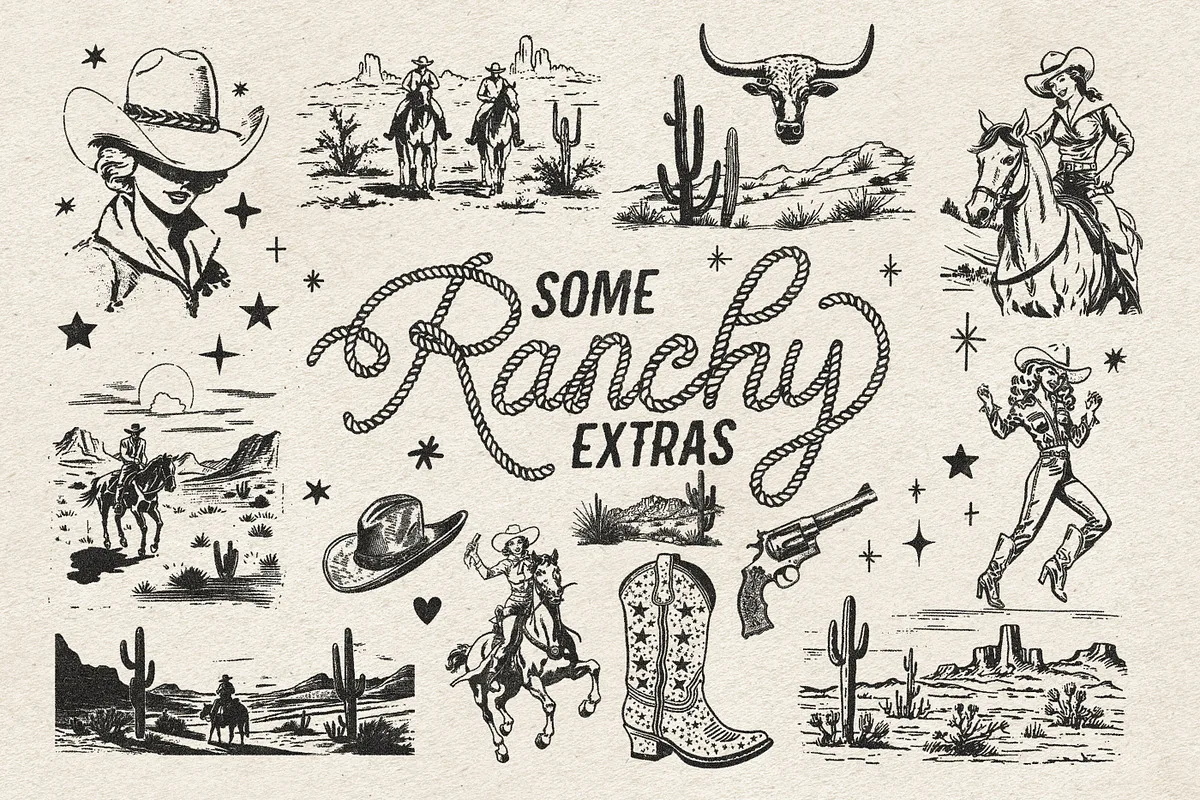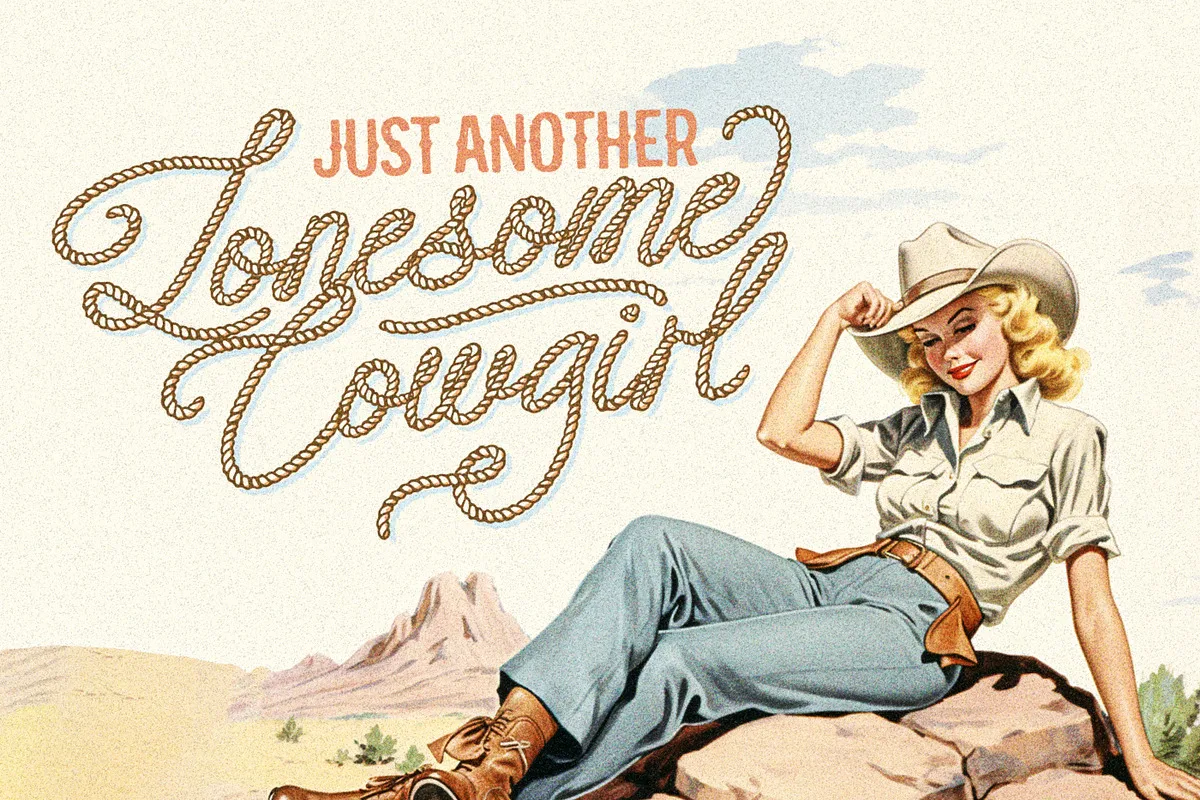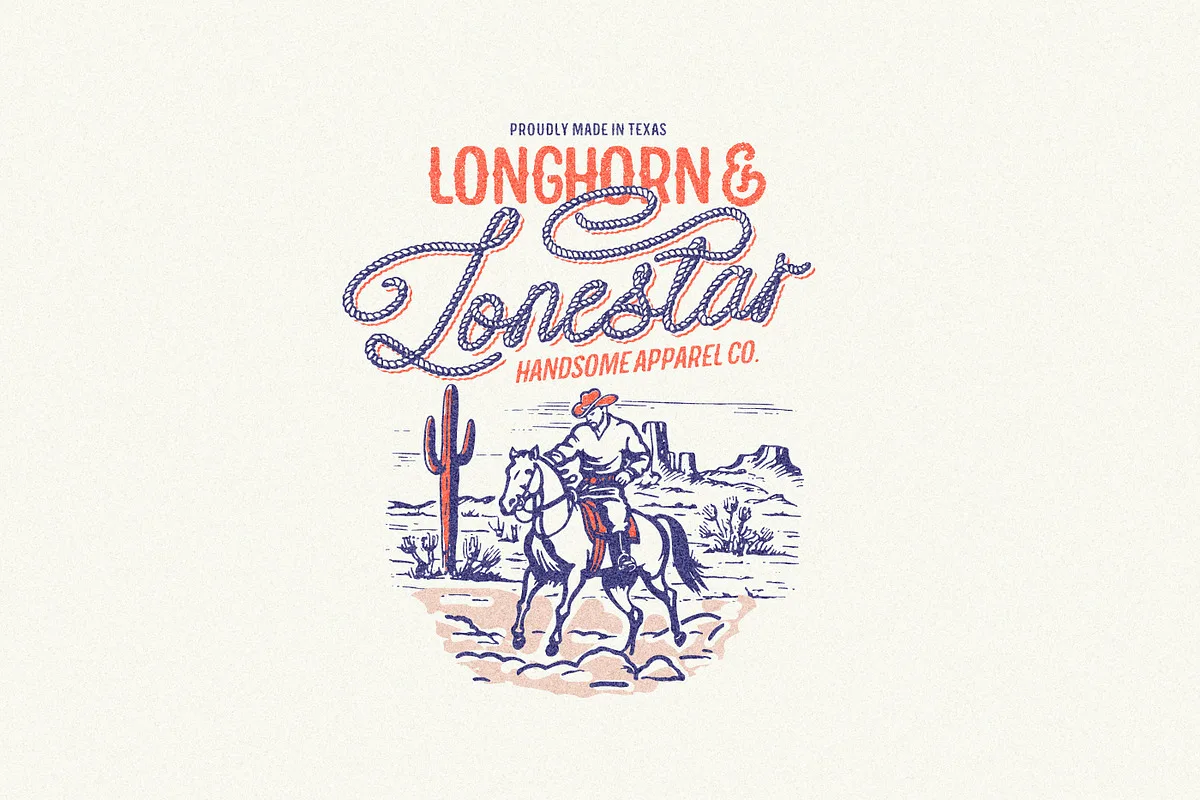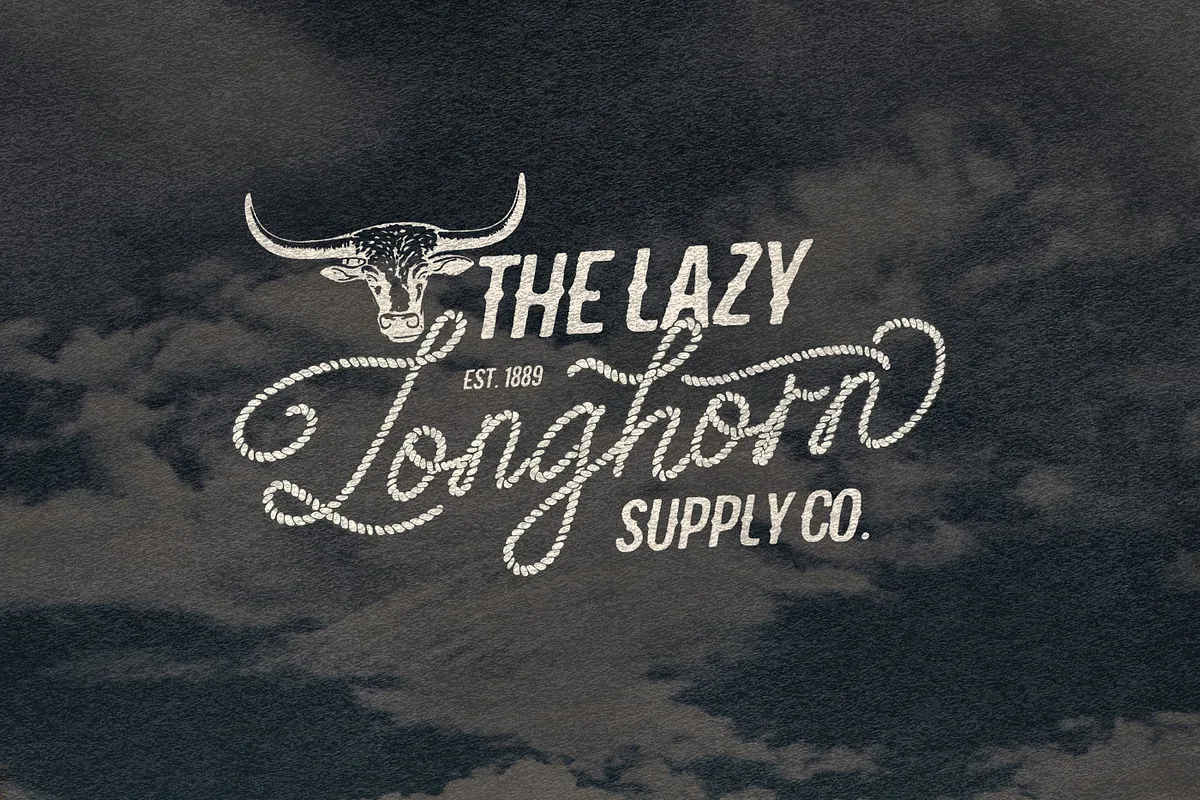
Howdy Handsome is a layered western font duo with endless possibilities. A Splendiferous Rope Script, with 17 Layering/Style Options, it also has a large selection of Opentype alternate characters, ligatures and cowboy swashes to take your cowboy type to the next level. An Upright version which is less oblique is included too. A Complimentary All-Caps Western Sans Serif with little median spurs, with 9 Layering/style options. A Slanted/oblique version is also included.